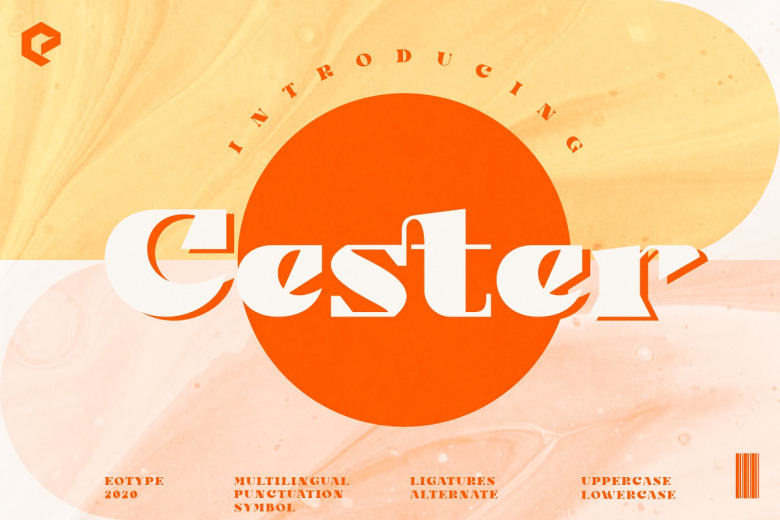
Cester Font
The designer of the Cester, modern and elegant serif font, is the Eotype Studio; its unique style with stylistic, alternates, ligatures supports multilingual languages.
It can be the best elegant solution in your logotype and a beautiful layout for your next magazine or high-quality presentation of your project and logos and signboards.
Cester Serif Font